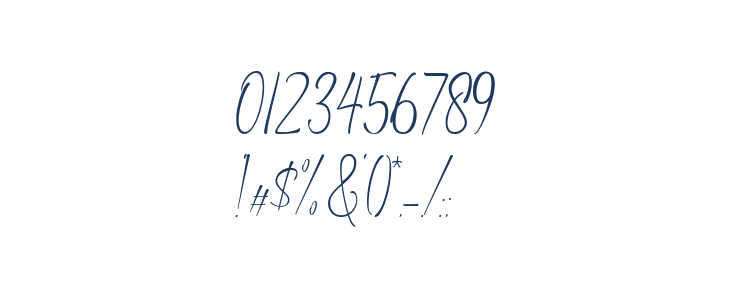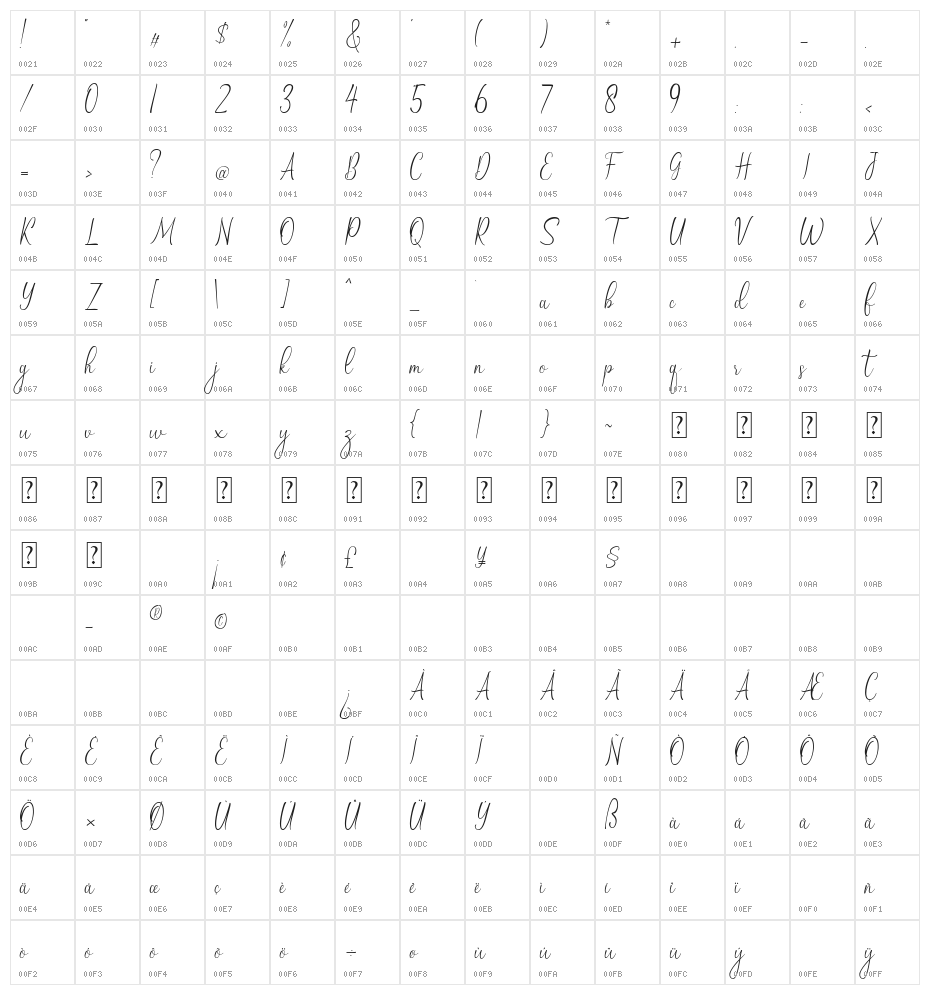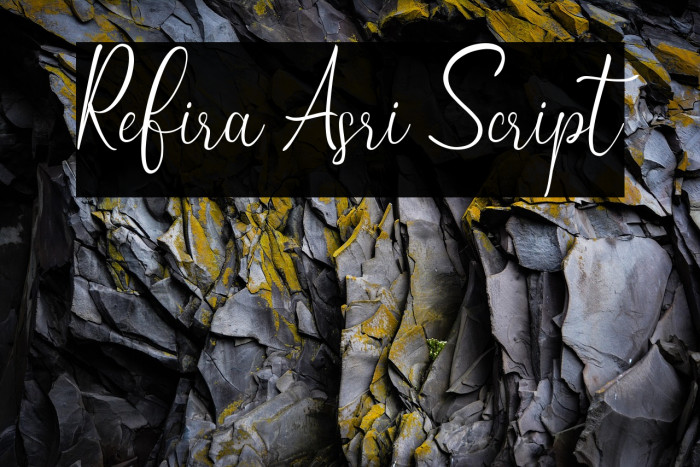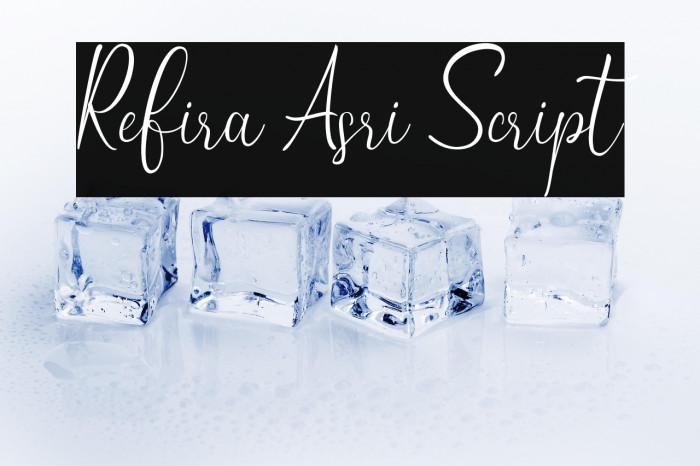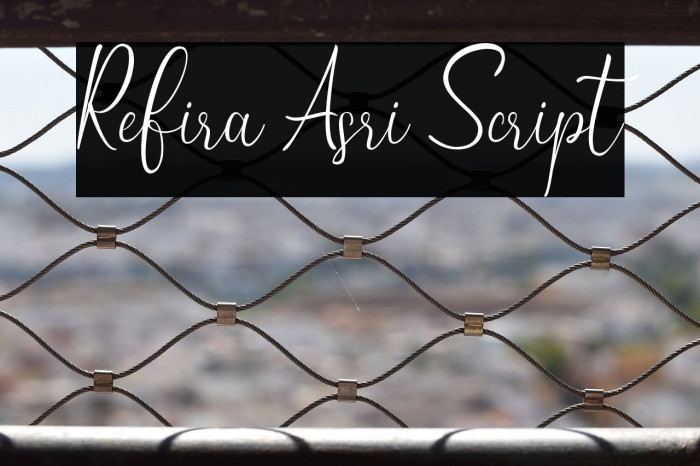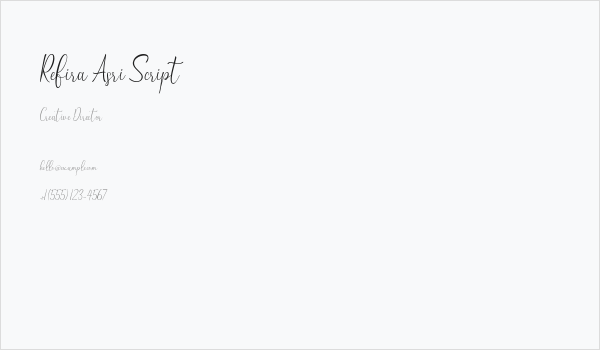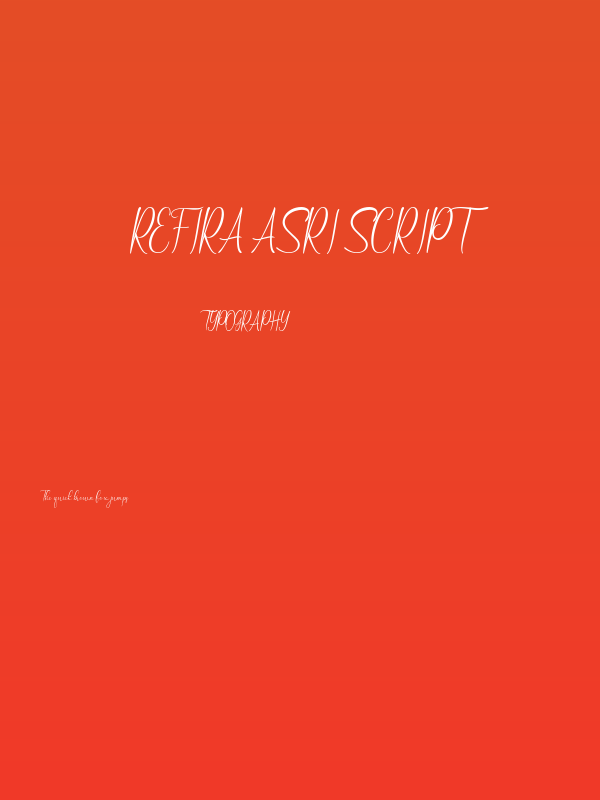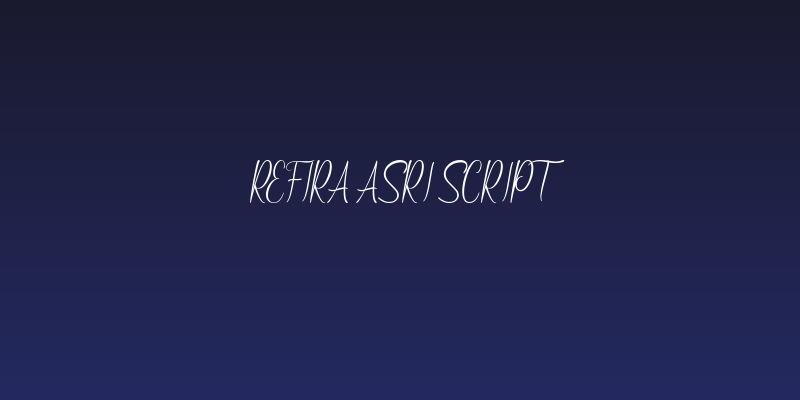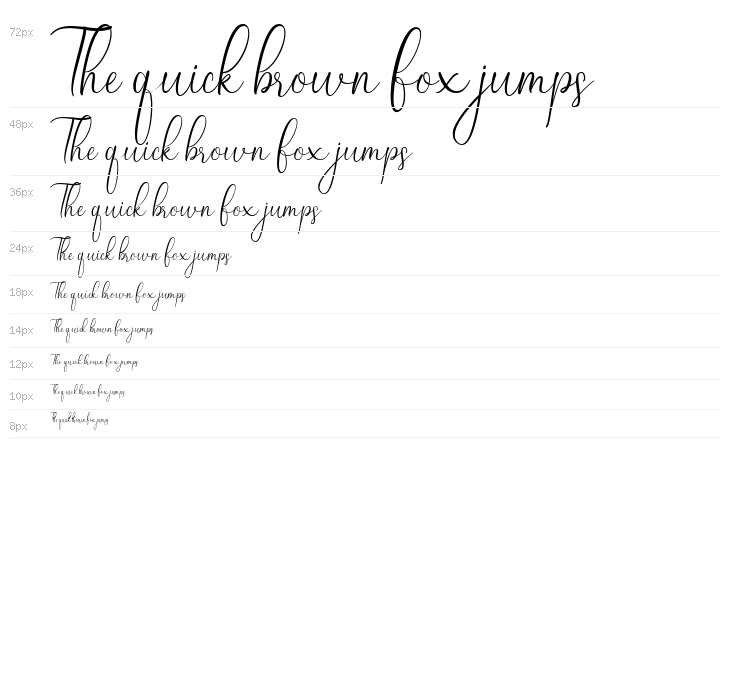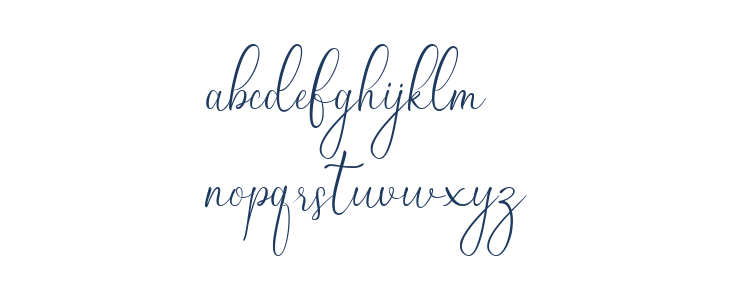
Refira Asri Script Font
Refira Asri Script Description
This elegant script font features a flowing, cursive style with a modern twist. The uppercase letters are tall and graceful, with sweeping ascenders and descenders that give a sense of movement and fluidity. The lowercase letters are equally stylish, maintaining a consistent flow that enhances readability while adding a touch of sophistication. The numerals are designed with a similar flair, ensuring they complement the overall aesthetic. Special characters are thoughtfully crafted to match the font's elegant style, making it versatile for various design needs. The font's thin strokes and delicate curves make it ideal for projects that require a touch of elegance and class.
| Use Case | Logos, Invitations, Branding |
| Proposed Projects | Ideal for wedding invitations, elegant branding, personal stationery, and upscale packaging. |